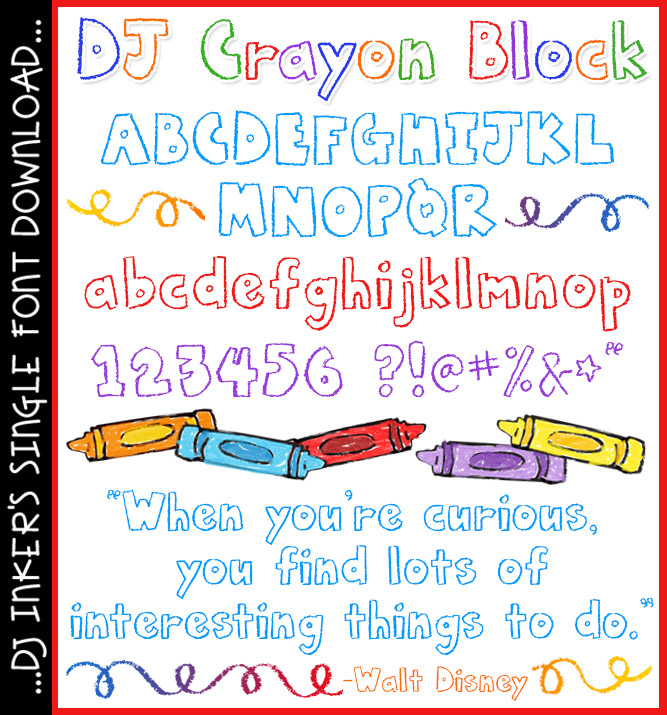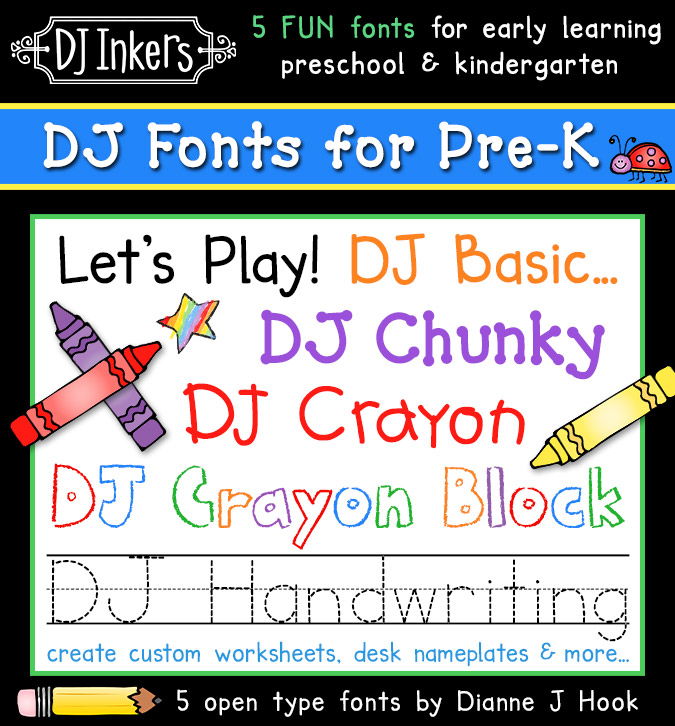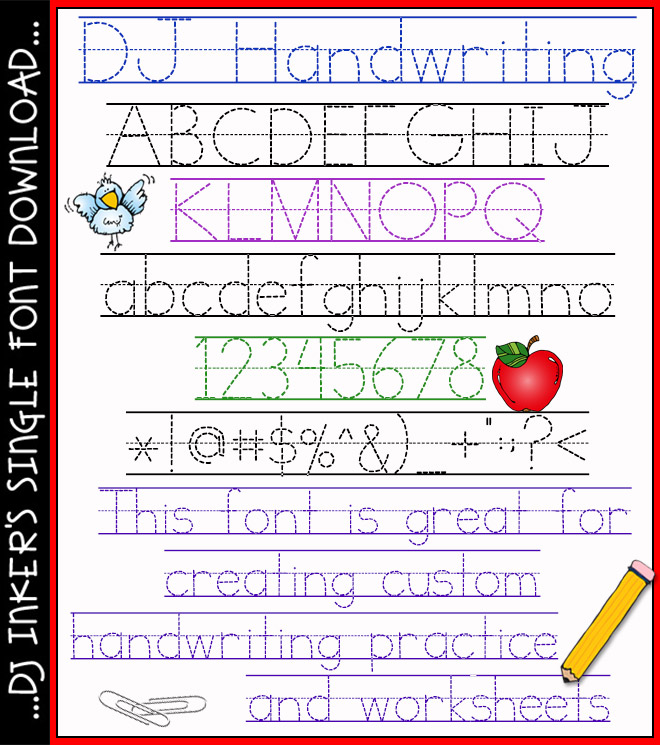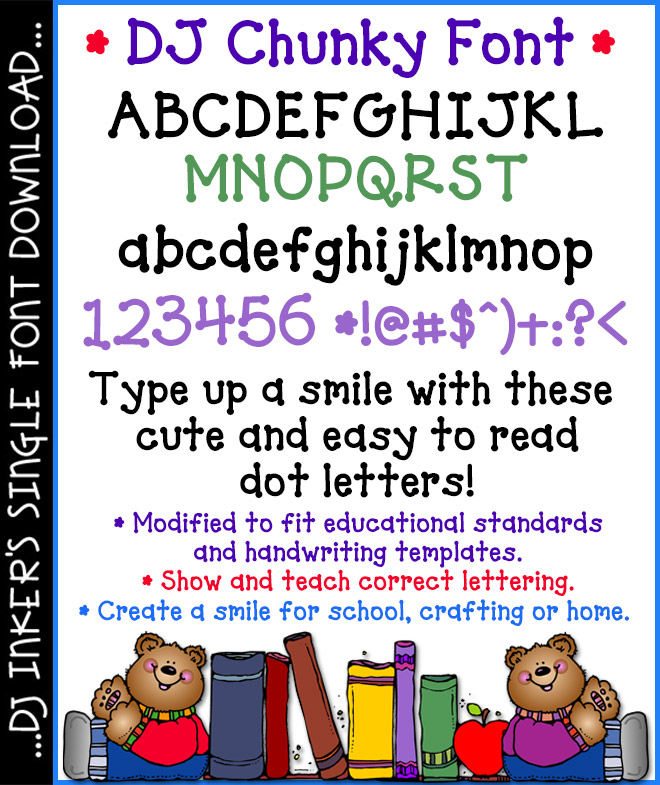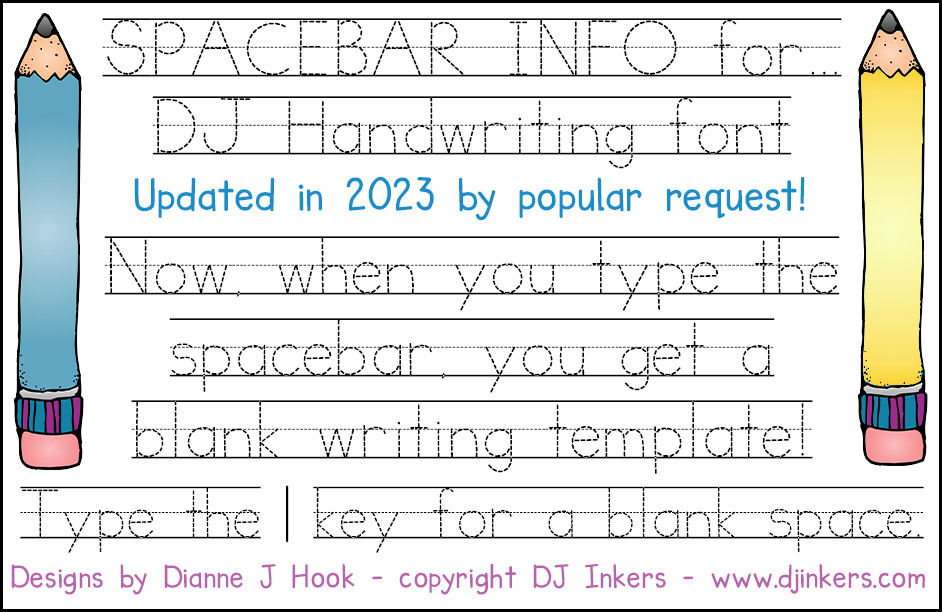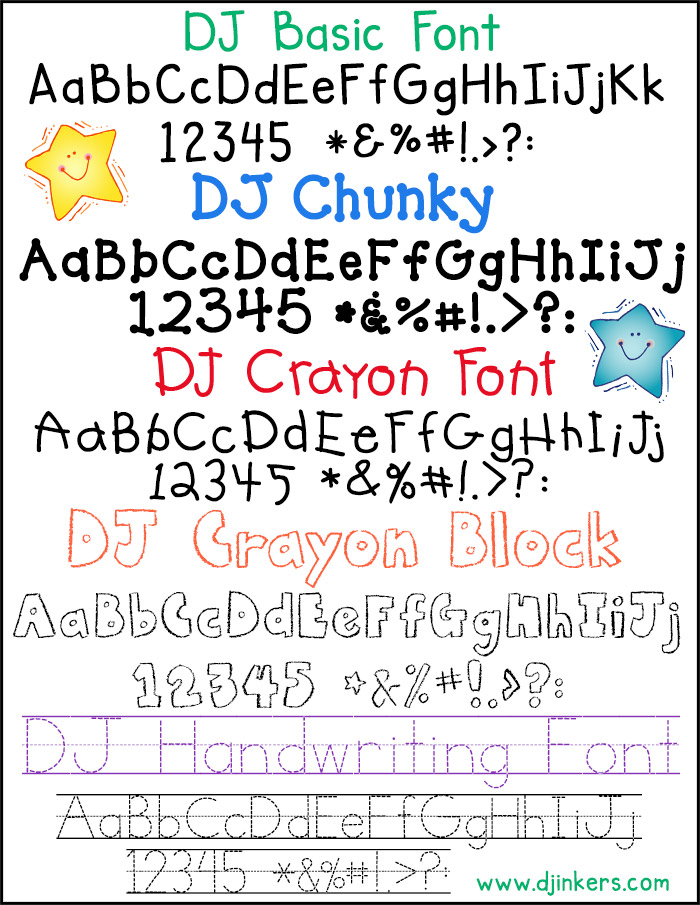
Fonts for preschool and kindergarten teachers and kids by DJ Inkers
DJ Fonts for Preschool and Kindergarten - Pre-K Font Collection
Looking for the best fonts for early education? This DJ font collection includes 5 Font-astic Fonts for Preschool and Kindergarten, with the perfect mix of cute, fun and handwriting practice.  Great for teaching ABC's & 123's, sight word practice, classroom decorations, custom worksheets and hand-outs that get noticed.
Collection includes:  DJ Basic, DJ Chunky (our famous dot letter font), DJ Crayon, DJ Crayon Block and our most useful learning tool, DJ Handwriting. Also sold separately, but this set saves you a bundle! :)